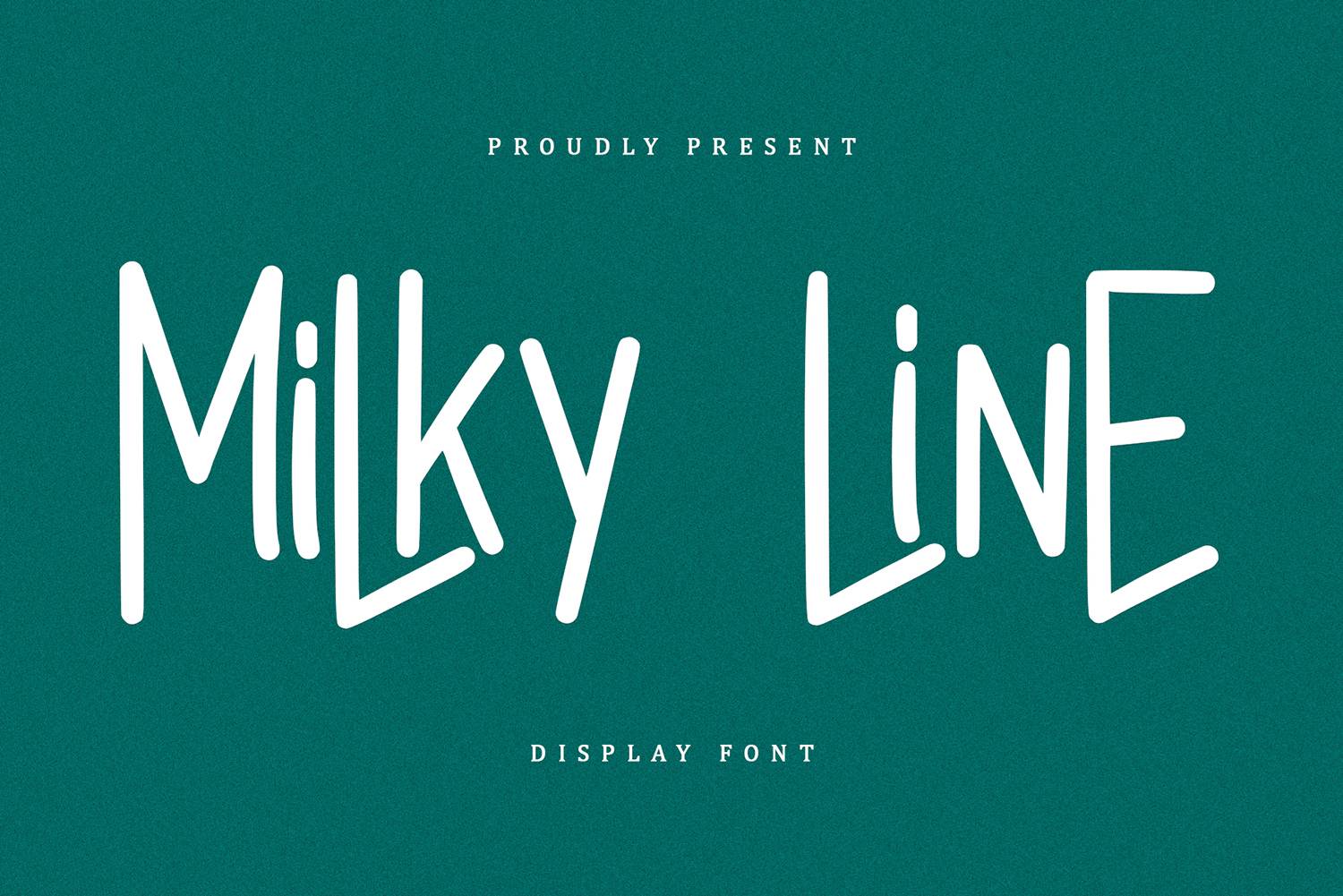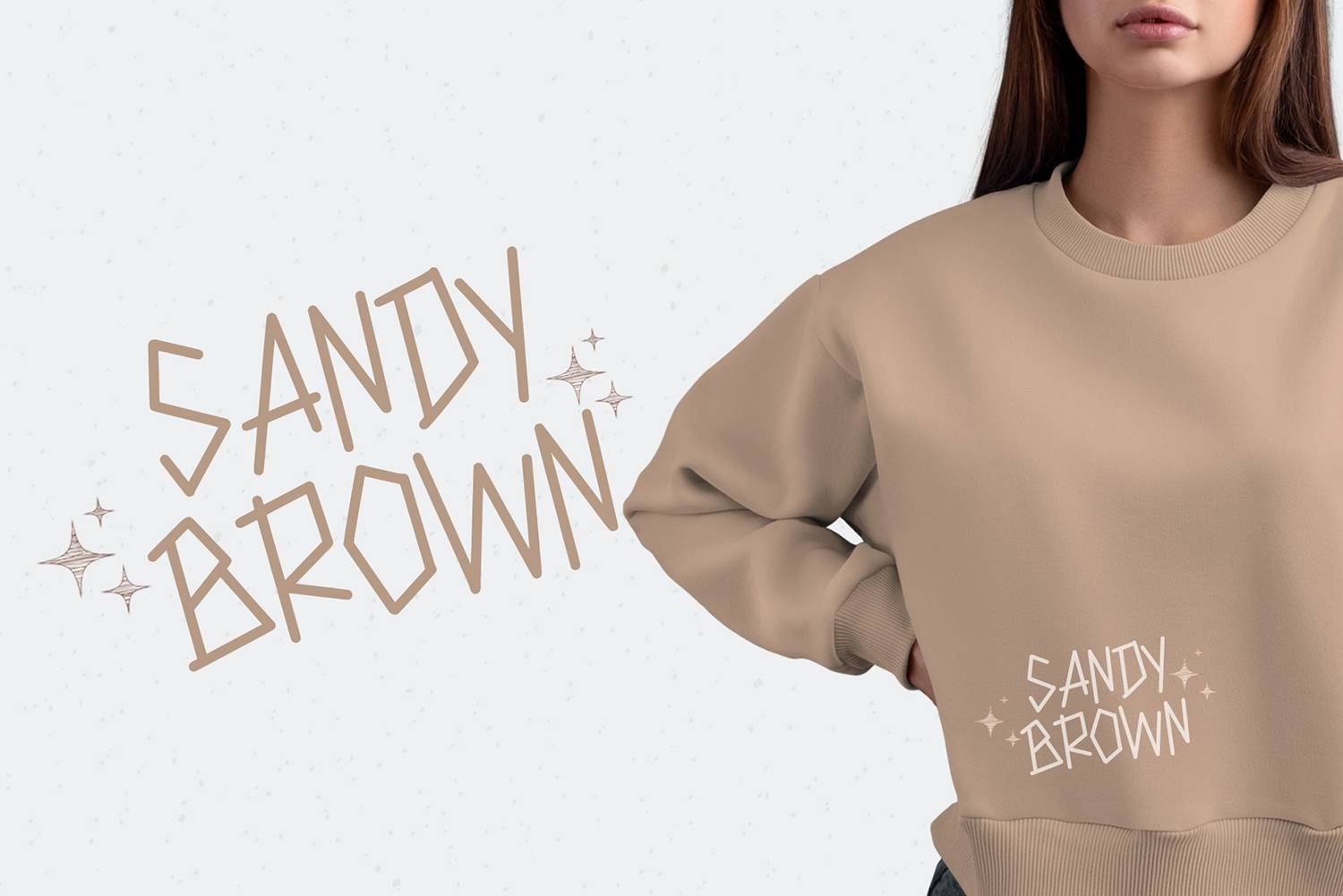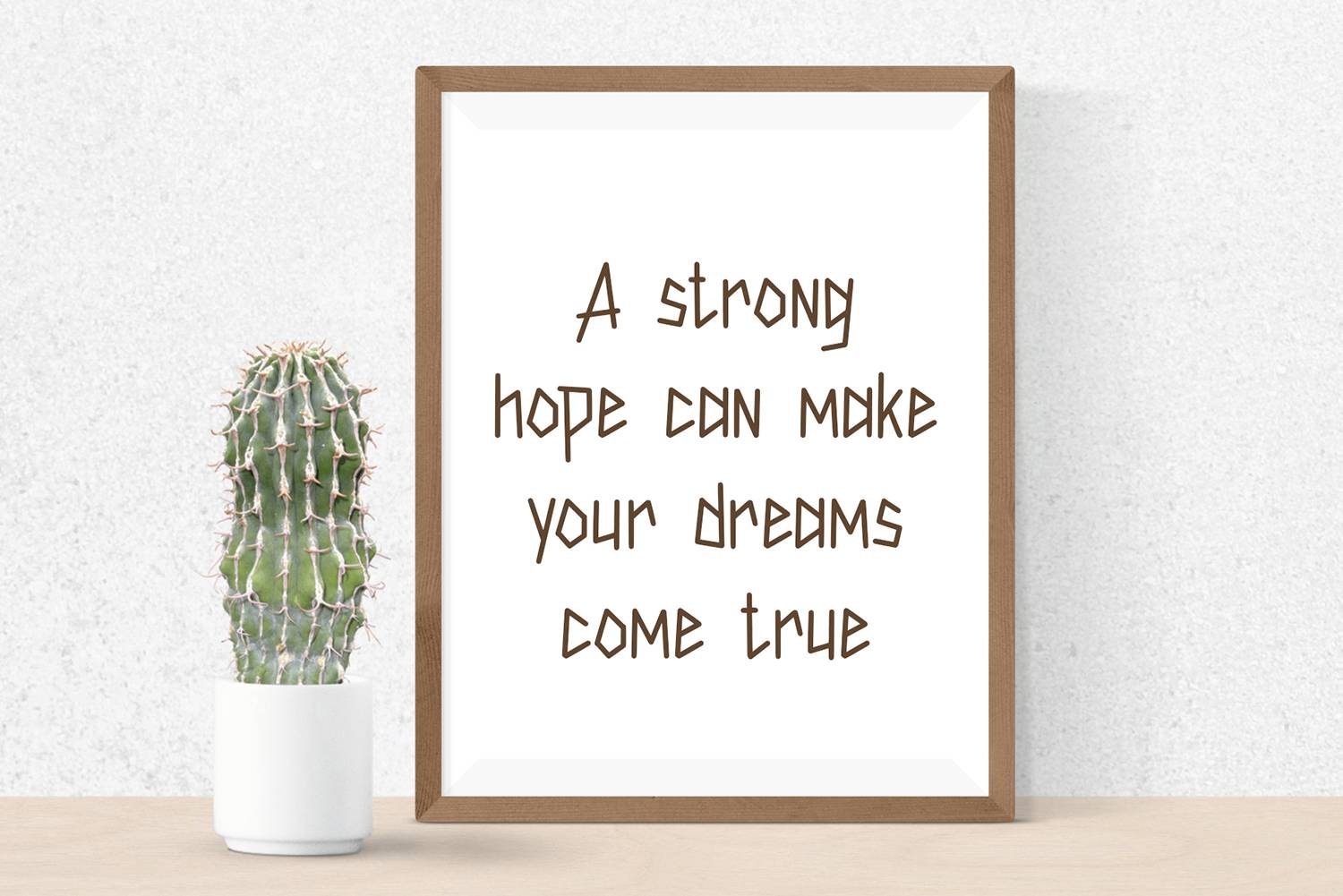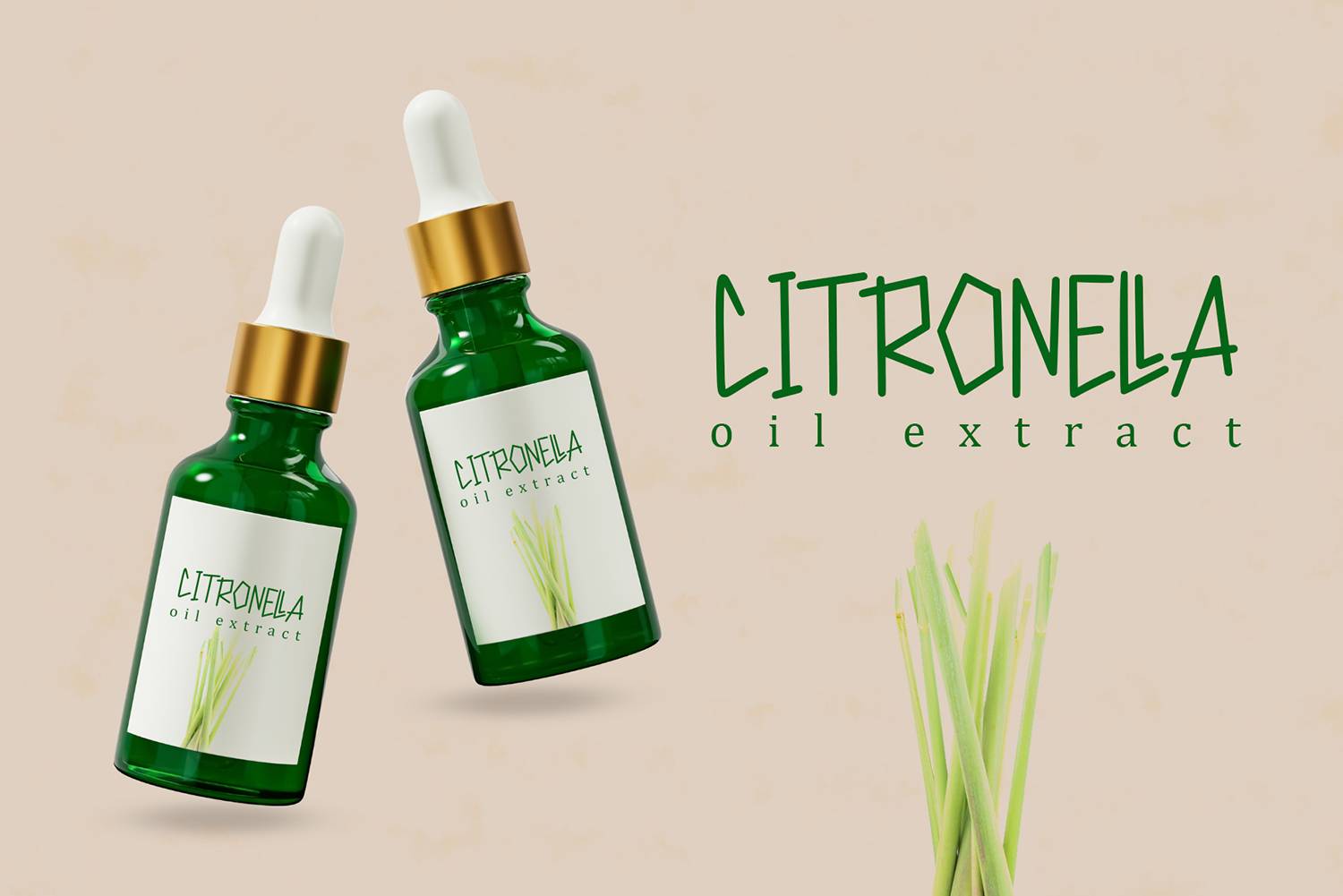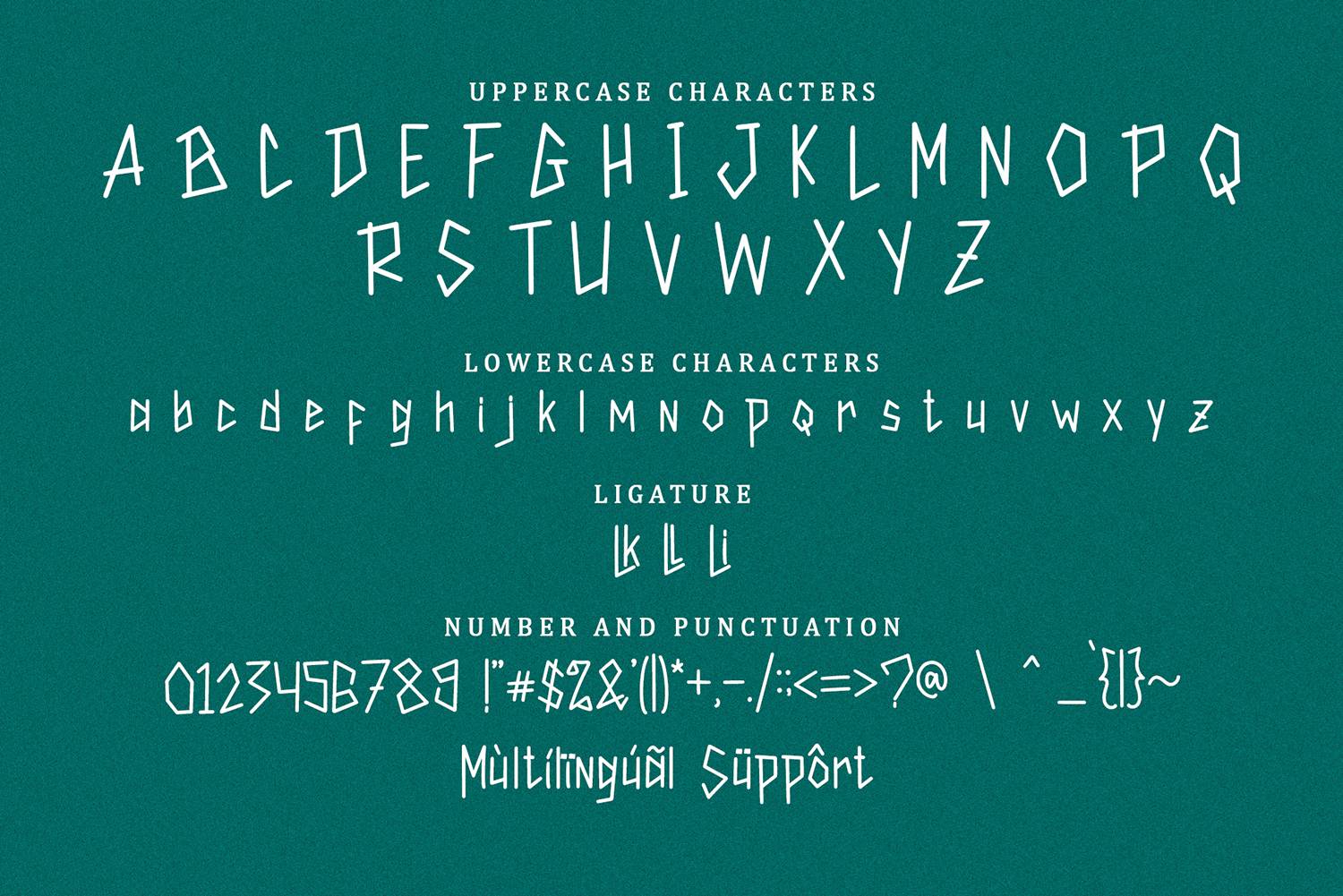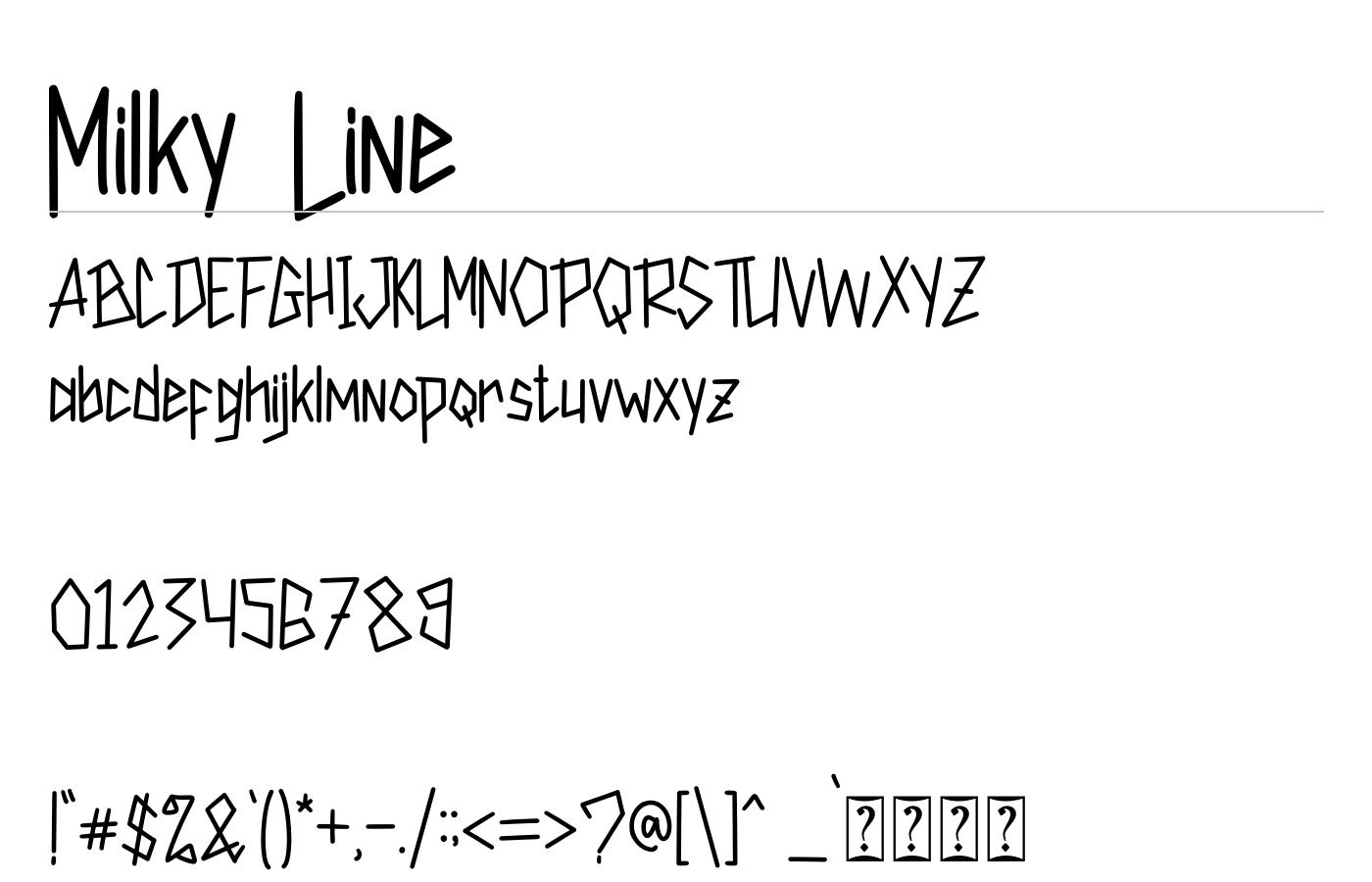
Milky Line is a playful and quirky handwritten sans serif font distinguished by its tall, narrow letterforms and irregular, slightly tilted strokes. Its thin, consistent line weight and whimsical character shapes make it ideal for fun, casual designs that want to convey creativity and a friendly vibe. This font works well for logos, posters, and children's projects where a unique, hand-crafted appearance adds personality and charm.
Milky Line Font